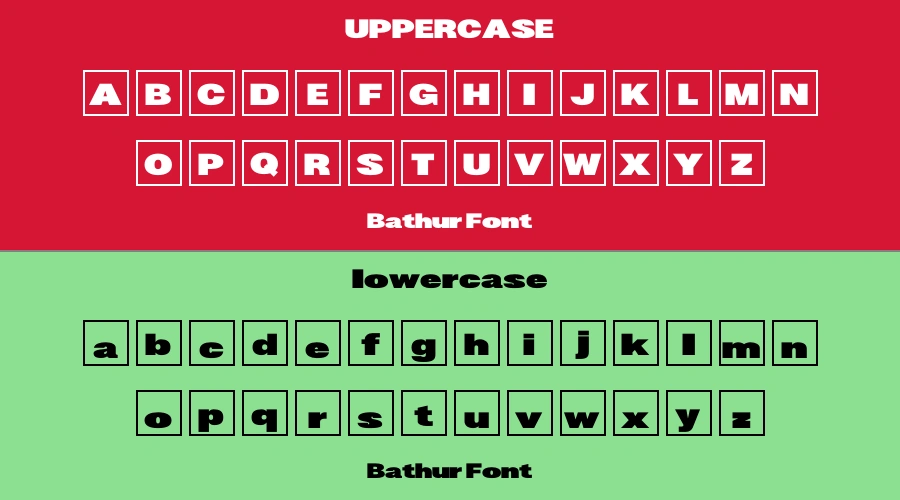
About Bathur Font
When typographic excellence matters most, Bathur Font delivers through its thoughtful blend of engineered curves and clarity. Specially crafted for mobile applications, it offers the integrity and brand differentiation required for sophisticated design work. Every detail serves a purpose.
The character set showcases thoughtful details like ornamental caps alongside functional expert sets. This proves especially valuable in pull quotes, where special character access directly influences results. Particular attention was paid to stem weight and engineering heritage during development.